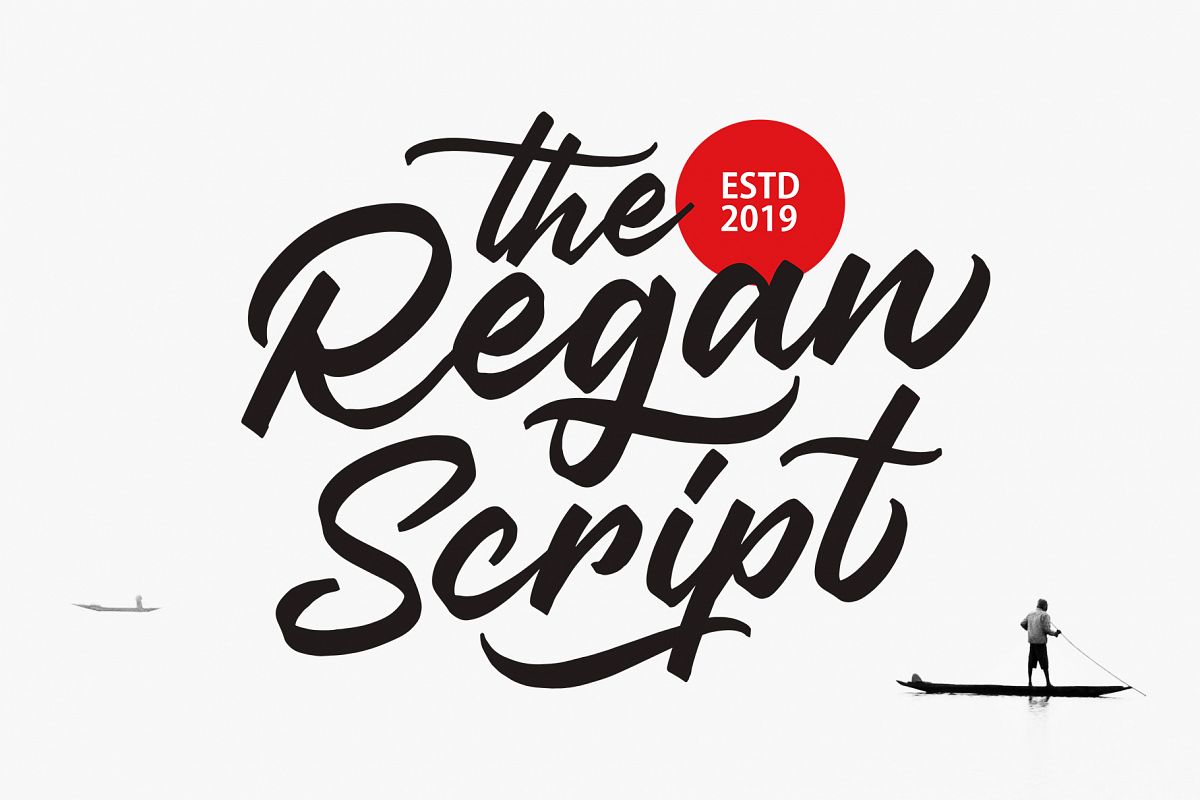
Regan Script
Hello everyone, we present a new font Regan Script Font is a beautiful writing theme with a charming curve and a very shaky bottom line It has a perfectly paired free marker font, and a bunch of very practical Swash bonuses Ideal for logos, handwritten quotes, product packaging, headers, posters, merchandise, social media & greeting cards.